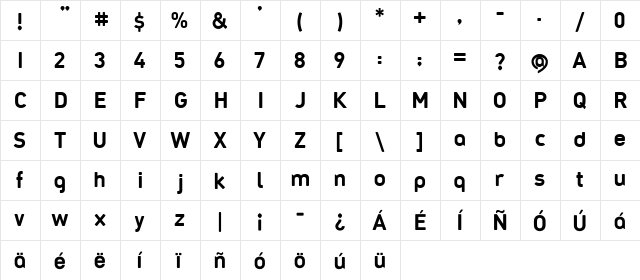
HublishRedux Regular
Design Context for HublishRedux Typeface
HublishRedux is a composed and adaptable typeface that performs quietly and consistently across a wide range of design contexts.